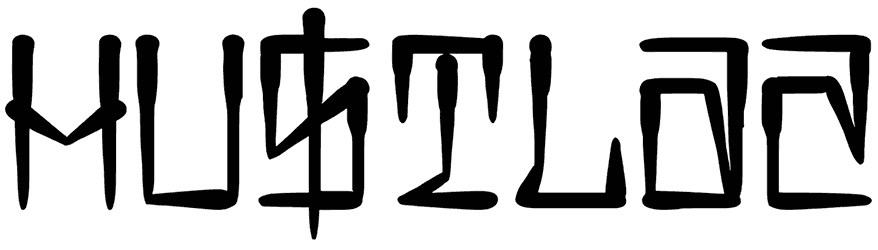
Hustlaz Font
If you want a personal and unique look without the whole process being time-consuming, Hustlaz is perfect for you. A combination of ancient lines inspires this graffiti font and utilizes geometric shapes to create an exciting look that evokes nostalgic feelings.
This feature has made this graffiti font able to turn any complex project into a doable task without having small letters and numbers. Hustlaz is the font of choice for your tattoo or t-shirt and your computer games.
HU$TLAS is a typeface inspired by the style of letters of the urban culture of Cholos / Gangs,